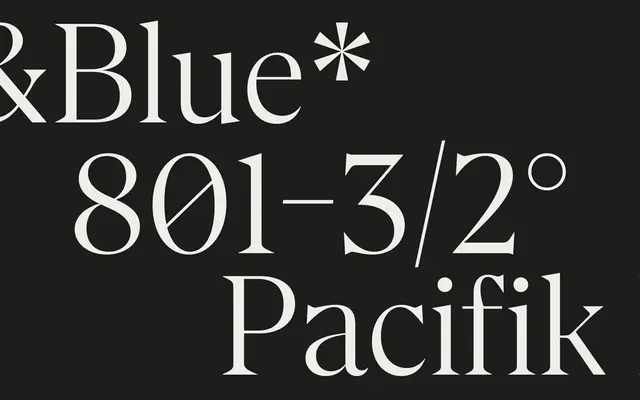
At Gambit
Arillatype · Andy Lethbridge · 2022
A high-contrast wedge serif by Andy Lethbridge in five weights with matching italics, designed for branding and editorial work.
Sharp angular wedge serifs and a high-contrast structure give the typeface a confident presence alongside a delicate quality suited to refined editorial and identity work. The family ships with ten styles across five weights, including a full variable font package, chess and typographic symbols, and multiple numeral sets including old-style, circled and Roman forms. A companion stencil variant, At Gambit Stencil, is available as part of the wider collection.
Features a high-contrast structure with angular wedge serifs, placing it in the tradition of sharp, elegant display serifs suited to branding and editorial contexts.